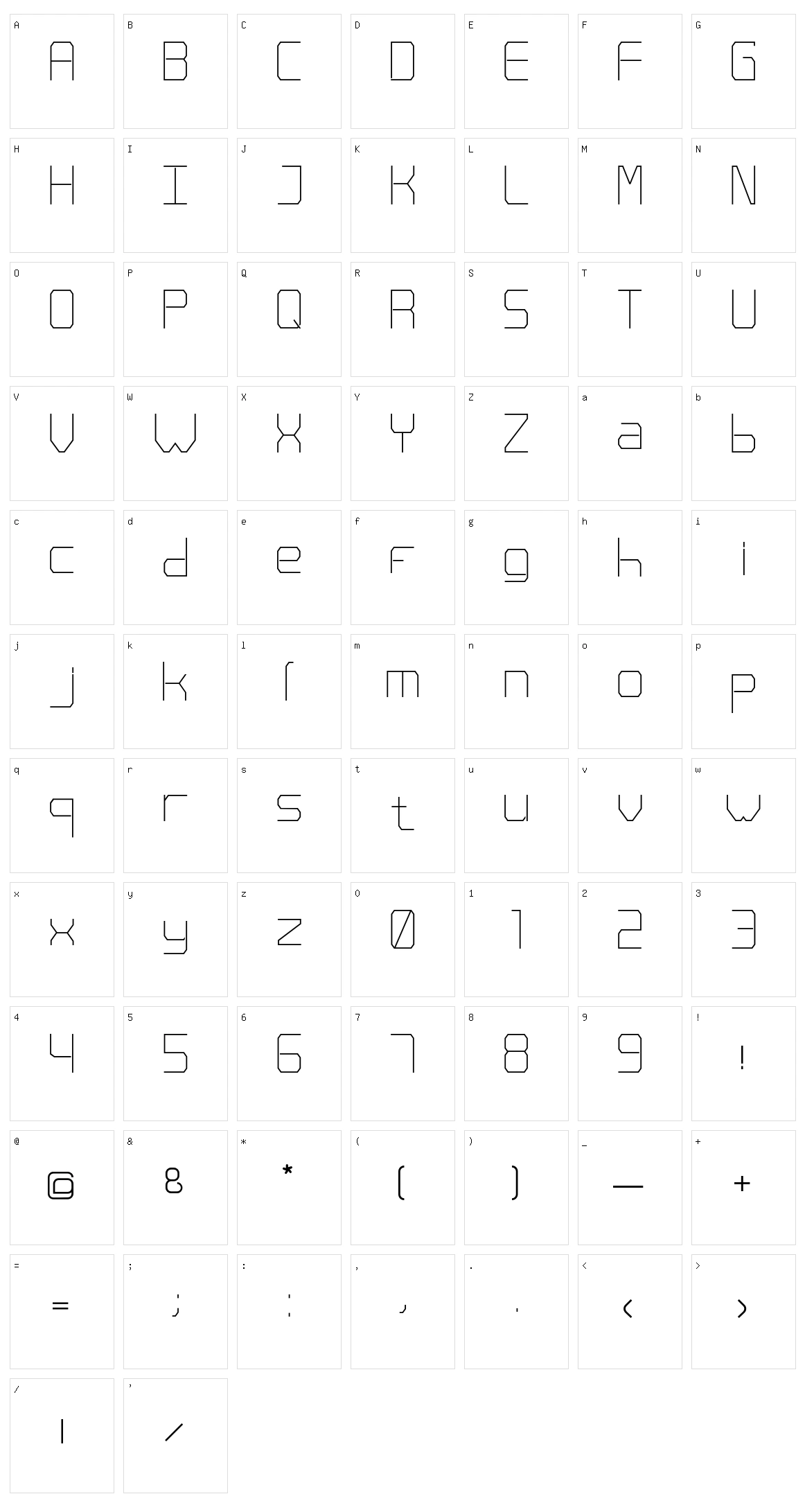
The free font Orgasmo is carefully designed by WesLo Fonts, showcasing a thoughtful balance of creativity and usability and falls under the Square font style. When you download the ZIP file, it contains only 5.11 KB of font files, making it lightweight and quick to download. Please review the license details below to understand permitted usage and distribution rights. If license information is not available, we recommend using this font for personal projects only or contacting the author directly for commercial usage permissions.